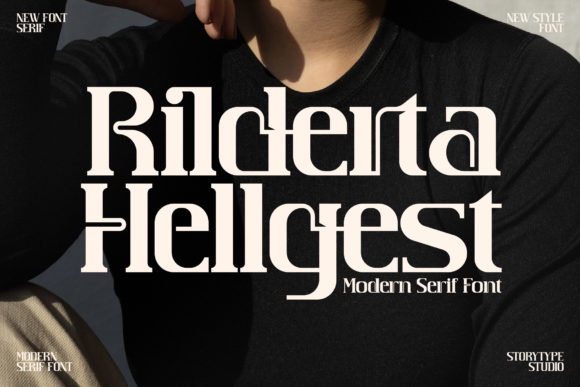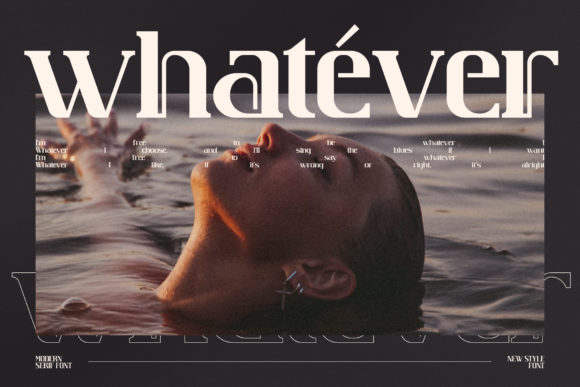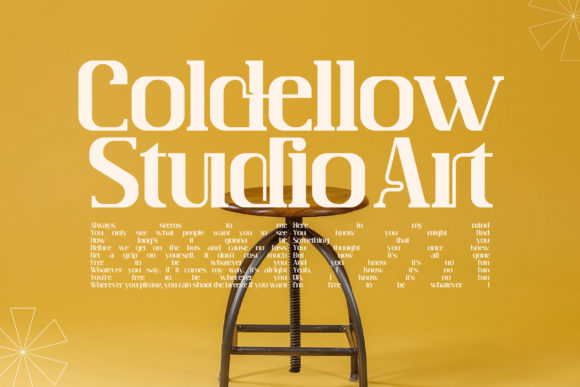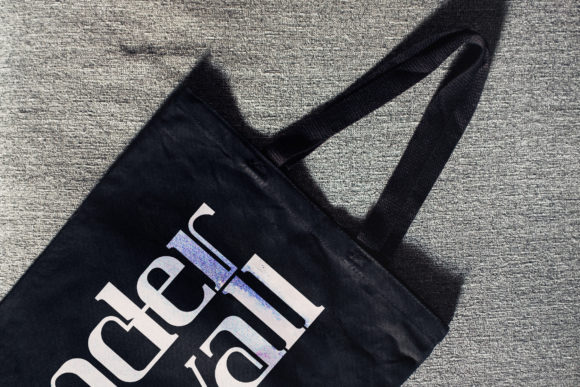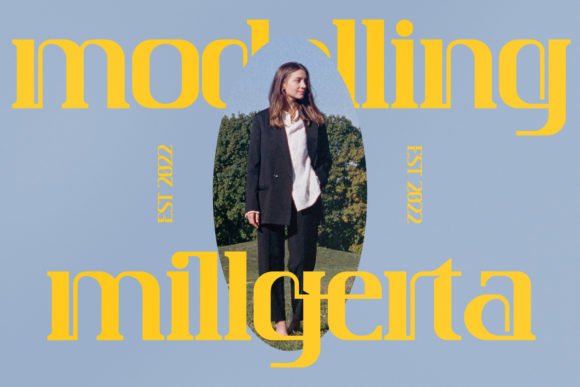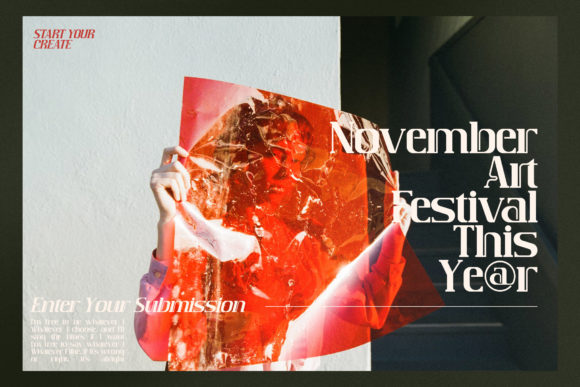
Introduction to Rilderta Hellges Font
Rilderta Hellges feels playfully nostalgic and delivers an incredible vintage aesthetic.
Use this serif font to add that special retro touch to any design idea you can think of This font is PUA encoded which means you can access all of the amazing glyphs and ligatures with ease.
Key Features of Rilderta Hellges Font
Why Choose Rilderta Hellges Font?